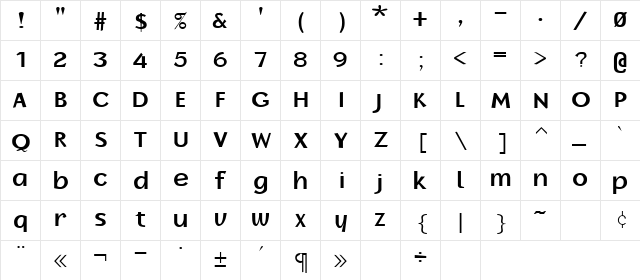
Wonton 2 Bold
Design Context for Wonton 2 Typeface
Wonton 2 takes a measured approach to typography — its balanced proportions and neutral character make it a reliable workhorse for both digital and print work. The heavy weight commands attention and anchors typographic hierarchies.